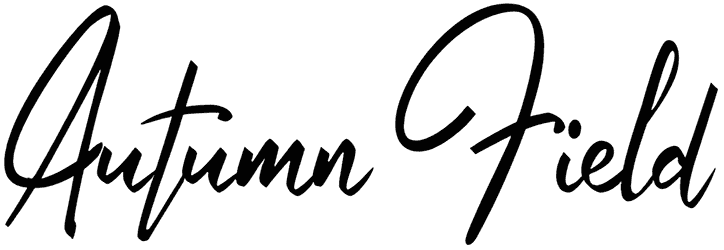
Catherine de Beaumont Font
Catherine de Beaumont is a script font that you can utilize for many various situations, to give you an idea; logos, beauty salons, calligraphy advertisements, and whatnot. Remember that this feminine tattoo font is not very legible, so you better use it for short lines. Apply it to your typography projects and knock over your clients with a feather.